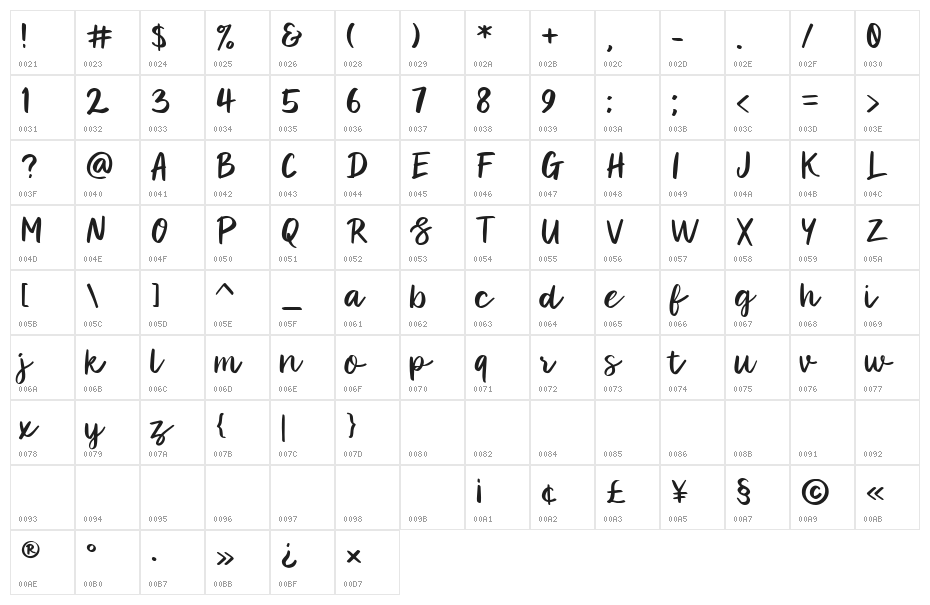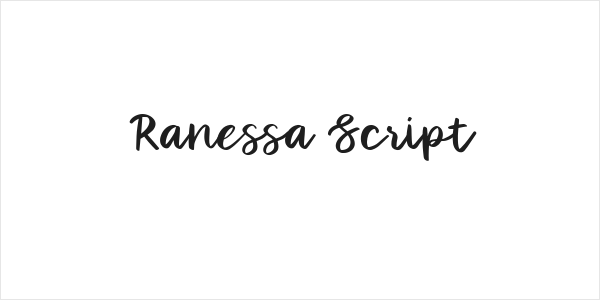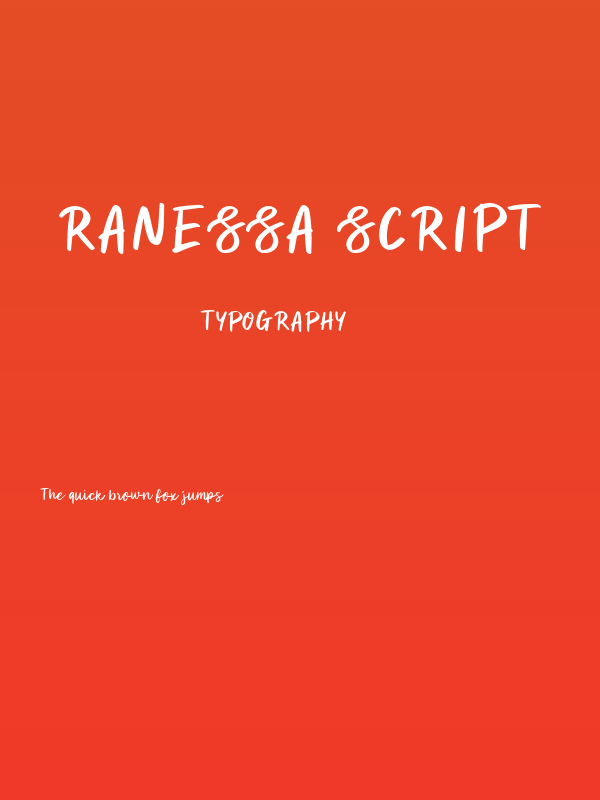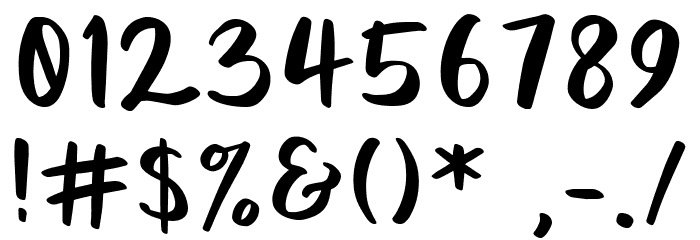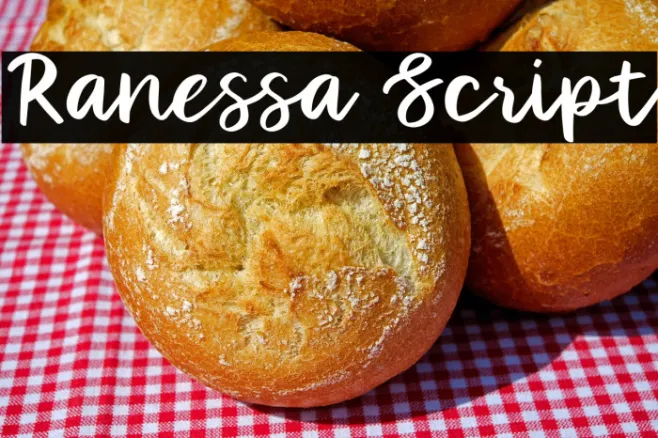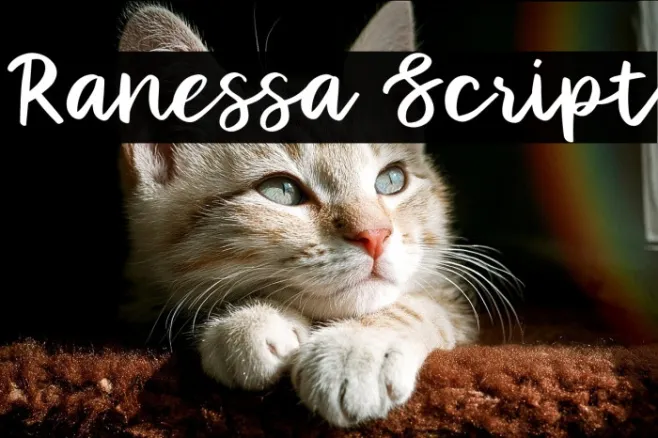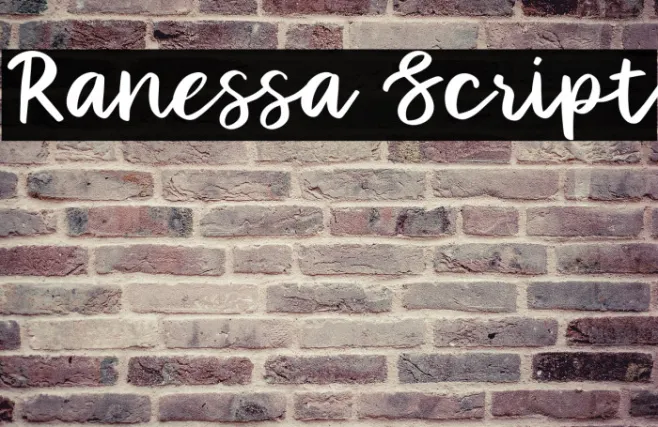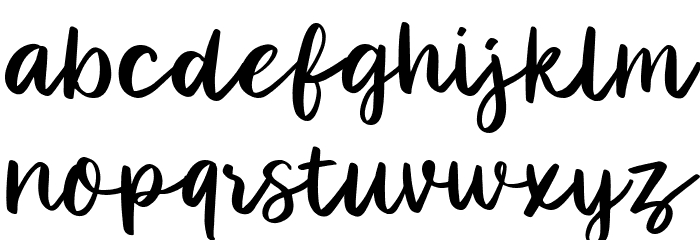
Ranessa Script Font
Ranessa Script Description
This script font exudes a casual and friendly vibe with its smooth, flowing strokes and slightly irregular baseline. The letters are connected, creating a handwritten appearance that is both approachable and stylish. The uppercase letters are bold and prominent, while the lowercase letters maintain a consistent flow, enhancing readability. The numerals are well-proportioned and align with the overall style, making them suitable for various applications. Special characters are included, adding versatility to the font's usage. The overall design is modern yet retains a touch of classic script elegance.